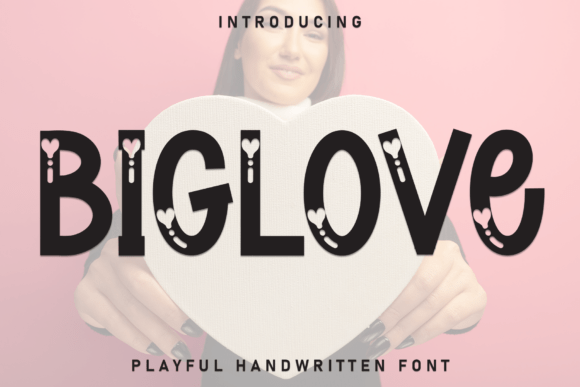
The Biglove Font: A Captivating Typeface for Romantic Designs
I still remember the moment I stumbled upon the Biglove font while working on a wedding invitation project. My client wanted a design that exuded warmth, joy, and a touch of whimsy. I had been searching for what felt like hours, but nothing seemed quite right. That was until I saw Biglove – its elegant curves and fiery ardor immediately captured my attention. It was as if the font was speaking directly to my creative soul, saying, “I’ve got this.” In this article, I’ll share my experience with Biglove, its features, and how you can make the most of this beautiful typeface in your designs.
- ✨ The font’s imaginative charm and lively display make it perfect for wedding invitations, romantic scripts, and designs that require a touch of elegance.
- ✅ Biglove radiates a captivating charm that creates an ambiance of warmth and brilliance, making it ideal for projects that require a sense of happiness and profound sentiments.
- 💕 Its distinctive bewitching character allows each word to reverberate with emotion, making it more than just a font – it’s an enchanting vehicle for a range of emotions.
While Biglove is an exceptional font, there are a few things to keep in mind:
- ⚠️ Biglove is a display font, so it’s best used in large sizes (30pt+). Using it for body text might not be the most effective choice.
- 🤔 Some of the OpenType features and glyphs might require a bit of experimentation to get the hang of, but trust me, it’s worth it.
The story behind Biglove’s creation is as captivating as the font itself. According to its designer, Biglove was inspired by the beauty of handwritten scripts and the desire to create a typeface that would evoke emotions and warmth. The designer aimed to craft a font that would be perfect for special occasions, like weddings and anniversaries, and for designs that require a touch of elegance and whimsy.
Q: What type of projects is Biglove best suited for?
A: Biglove is perfect for wedding invitations, romantic scripts, and designs that require a touch of elegance, warmth, and whimsy.
Q: Is Biglove a versatile font?
A: While Biglove is primarily a display font, it’s incredibly versatile in terms of the emotions and ambiance it can evoke. Experiment with different sizes, colors, and design elements to get the most out of this beautiful typeface.